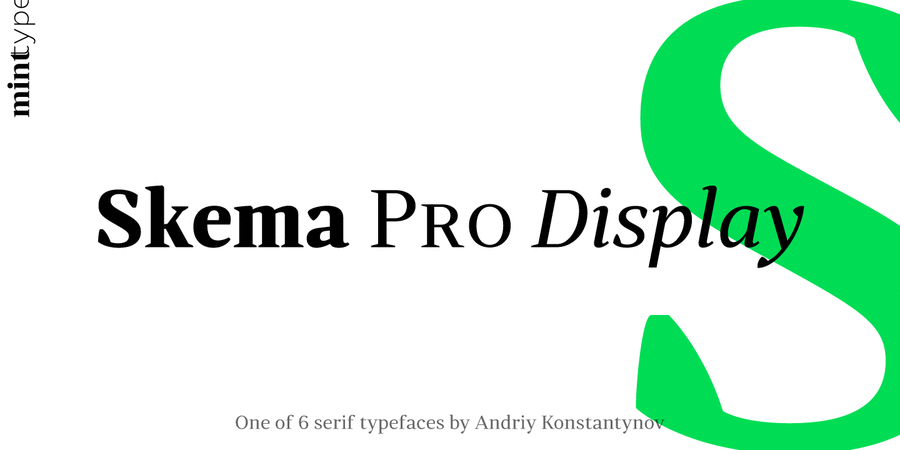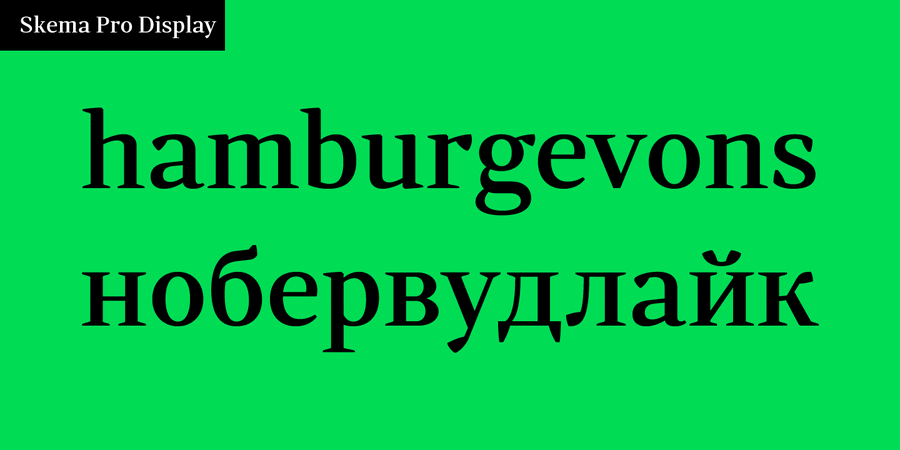
About Skema Pro Display is a typeface with high contrast, large x-height, and vertical axis. It shows its features in large text sizes, such as editorial headings.
Skema Pro is a versatile system of 6 serif typefaces – each bearing a distinct character and purpose. Together they form a huge superfamily of 84 fonts to fit any imaginable task.
Font family Skema Pro was designed and released by Andriy Konstantynov in Mint Type foundry in 2017.
Associations for font family Skema Pro DisplayTypeface personality and character:
harmonious, thin, easy, technically, modern, cultural, educated, urban, accurate, solid, noble, high-quality, silver, static, cutting, pretentious, proud, expensive, luxurious, fashionable, rich, refined, delicate, chilly, fresh, select, elite, beautiful, jewelry, masterful, aesthetically beautiful, famous, precious, original, voiced, sharp, polite, elegant, plastic, dynamic, feminine, stable, strict, convincing, authoritative, motivating, dense, spectacular, theatrical, dramatic, passionate, close-fitting, strong, notable, splashy, bright